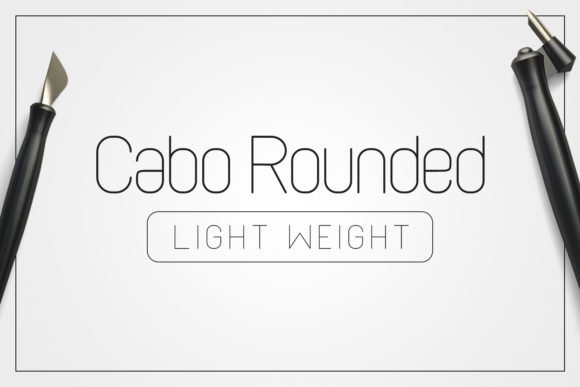
The Perfect Design Companion: Cabo Rounded Light Font
Have you ever found yourself staring at a blank design project, trying to decide on the perfect font to bring your vision to life? We’ve all been there – the blank page staring back at us, taunting us with the possibilities. That’s when the search begins, scouring through font libraries, and testing out different styles until we find the one that clicks.
Enter the Cabo Rounded Light Font, a clean and adaptable sans serif font that’s poised to become your new design BFF. With its neat and simple style, this font is the ultimate chameleon, effortlessly blending into any design project, from elegant invitations to modern logos. For designers, the value lies in its versatility and ease of use, making it an invaluable addition to any font collection.
Whether you’re a seasoned pro or just starting out, the Cabo Rounded Light Font is a reliable choice that’s sure to impress. So why wait? Give it a try and discover why it’s quickly becoming a favorite among designers everywhere.
Cabo Rounded Light Font Key Features
- Font Size and Style: Offers a range of font sizes and styles, including regular, bold, italic, and bold italic, to cater to diverse design needs.
- Resolution and Scalic: Designed for high-resolution displays, suitable for use in digital media, and includes scalable vector graphics (SVG) for crisp and clear rendering.
- Unique Characteristics: Features a rounded and modern aesthetic, with subtle rounded edges and a light, airy feel, making it ideal for creative and minimalist designs.
- Language Support: Supports multiple languages, including Latin, Greek, Cyrillic, and more, ensuring global accessibility and versatility.
- Font Metrics: Includes precise font metrics, ensuring accurate text rendering and layout in various design applications.
Cabo Rounded Light Font Review
Overall, I think the Cabo Rounded Light font is a solid choice for designers. Here are some of its strengths:
- ✨ It’s incredibly legible, even at small font sizes, making it perfect for body text.
- ✨ The rounded edges give it a friendly, approachable feel that’s great for branding and marketing materials.
- ✨ The light weight makes it a great option for creating contrast with bold or heavy elements in a design.
- ⚠️ The font may not be as distinctive or memorable as some other rounded fonts on the market.
- ⚠️ It may not be the best choice for headlines or titles, as it can get lost in larger text.
- ⚠️ Some users have reported issues with kerning (the spacing between letters) in certain font sizes.
Overall, I’d say the Cabo Rounded Light font is a great option for designers who want a clean, legible font for body text. While it may not be the most distinctive or attention-grabbing font, it’s a solid choice for everyday use. Just be aware of its limitations and consider pairing it with other fonts to create a more interesting visual hierarchy.
Tips for Getting the Most Out of Cabo Rounded Light Font
Use Cabo Rounded Light Font for headings and titles to create a clean and modern look.
Pair it with a bold font for contrast and visual interest.
Experiment with different font sizes and colors to create a unique visual identity.
Cabo Rounded Light Font is ideal for:
Logos and branding materials
Social media graphics and advertising
Business cards and marketing materials
Any design where a clean, modern look is desired
Alternatives to Cabo Rounded Light Font
Poppins Light Font
Poppins Light is a clean and modern sans-serif font that is highly legible. It is ideal for use in digital products, such as mobile apps, websites, and software. Poppins Light has a similar feel to Cabo Rounded Light Font, but with a more geometric and minimalist approach.
Montserrat Light Font
Montserrat Light is a sans-serif font designed for urban environments. It is highly readable and versatile, making it suitable for use in a wide range of applications, from logos to body text. Montserrat Light has a more condensed feel than Cabo Rounded Light Font, but still maintains a friendly and approachable tone.